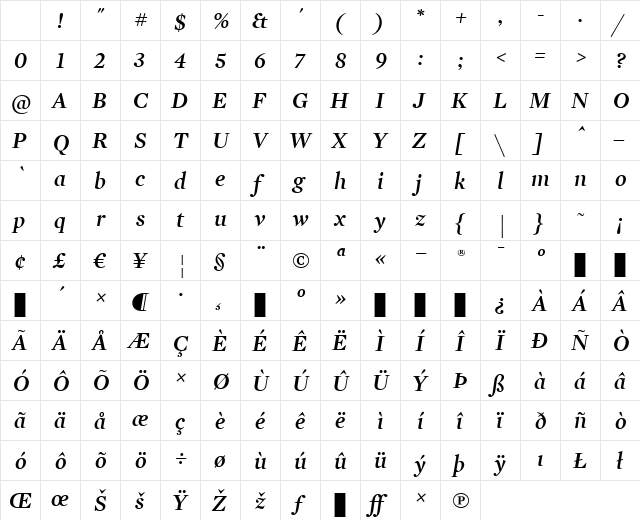
Complete Mercury Display SemiBold Italic glyph index. Displaying only characters natively supported by Mercury Display SemiBold Italic font.
Mercury Display is built around its visual character rather than neutral utility - its distinctive forms are designed to make an impression at display sizes. The slanted form adds forward momentum and visual energy. Its bold stroke weight gives it real presence on the page.
Font Pairing: Pair with a clean neutral sans-serif for body copy to let Mercury Display's character lead without overwhelming the composition.
Pro Tip: Use Mercury Display exclusively at display sizes - it was designed to be seen, not read at length. Let a neutral companion handle body copy.